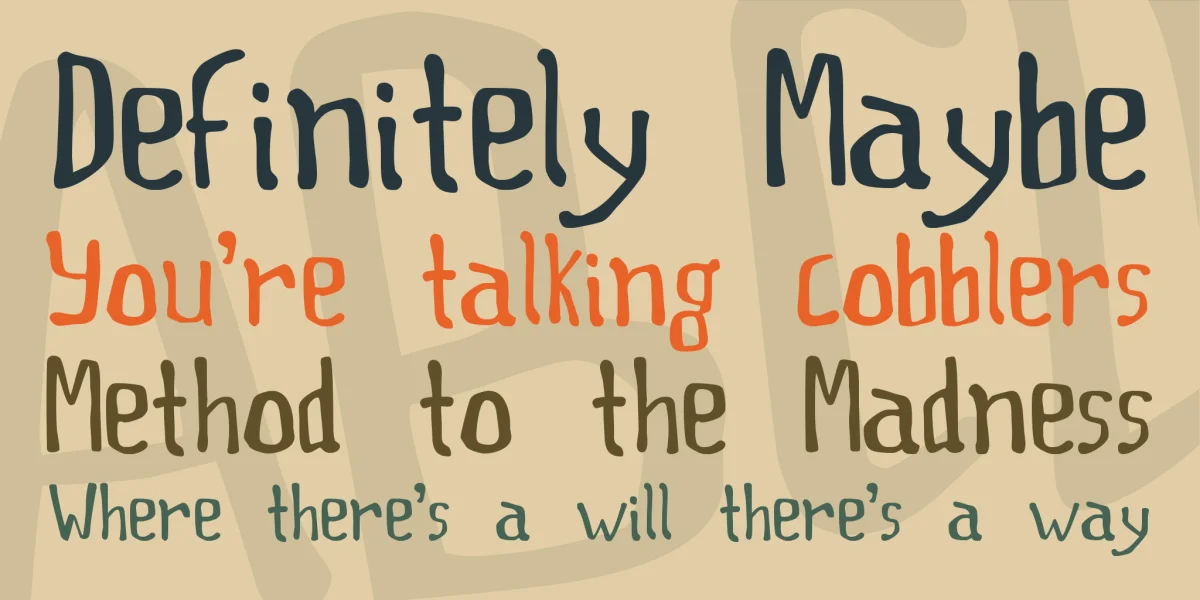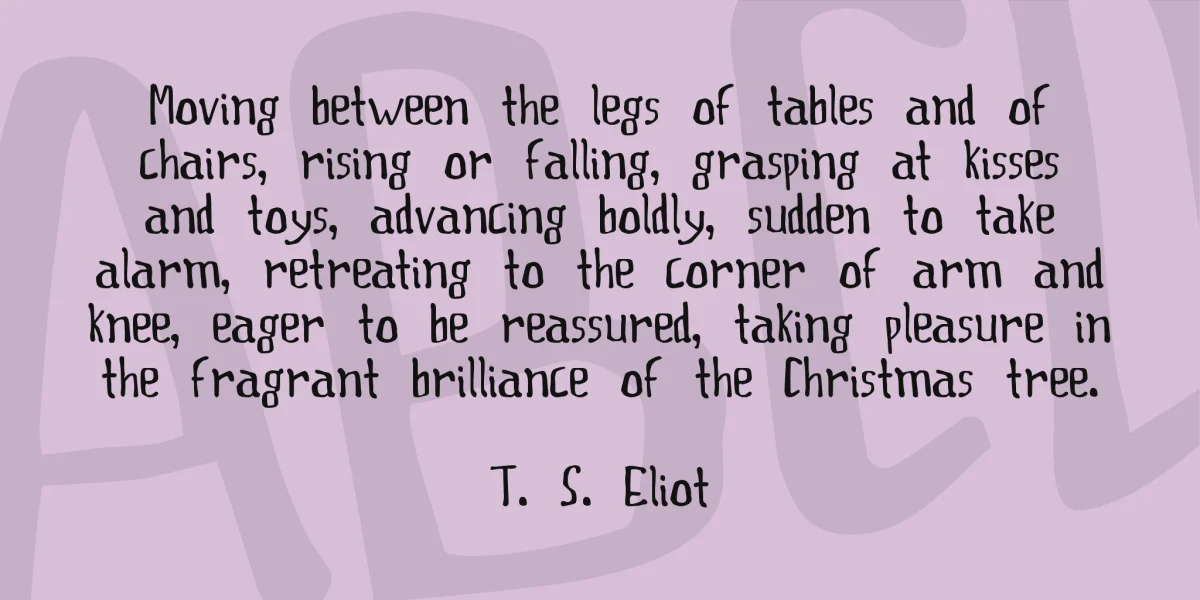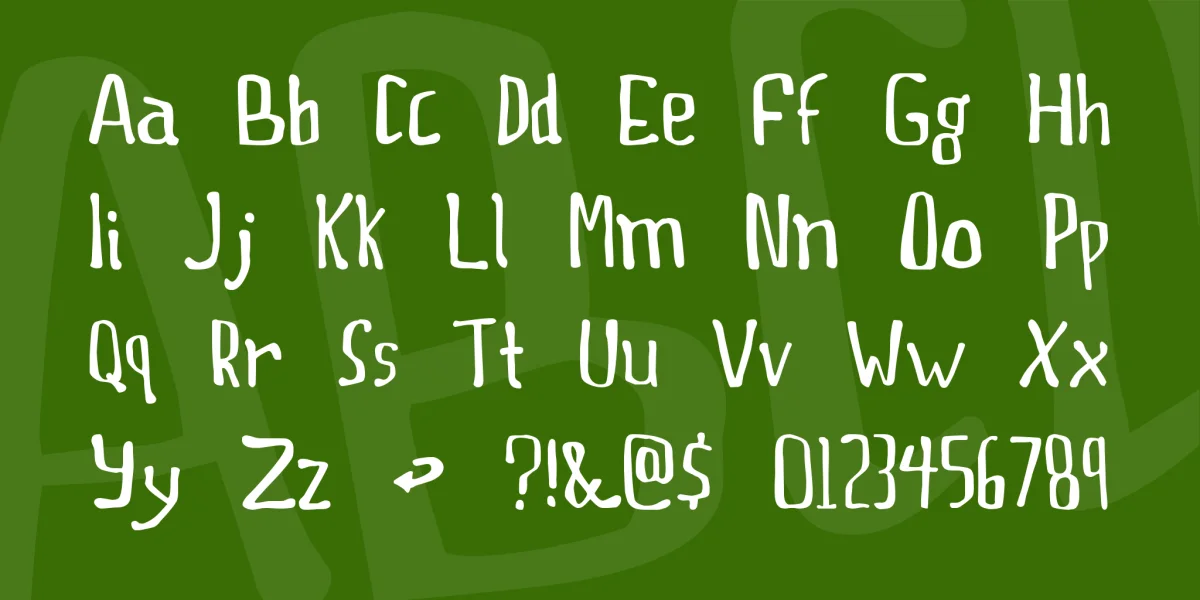
(All keyboard characters, some foreign/special) is a font I made at my brother's boring Graduation Party (scan font). This font doesn't really know what it's trying to be, but it has its uses I'm sure. Enjoy!